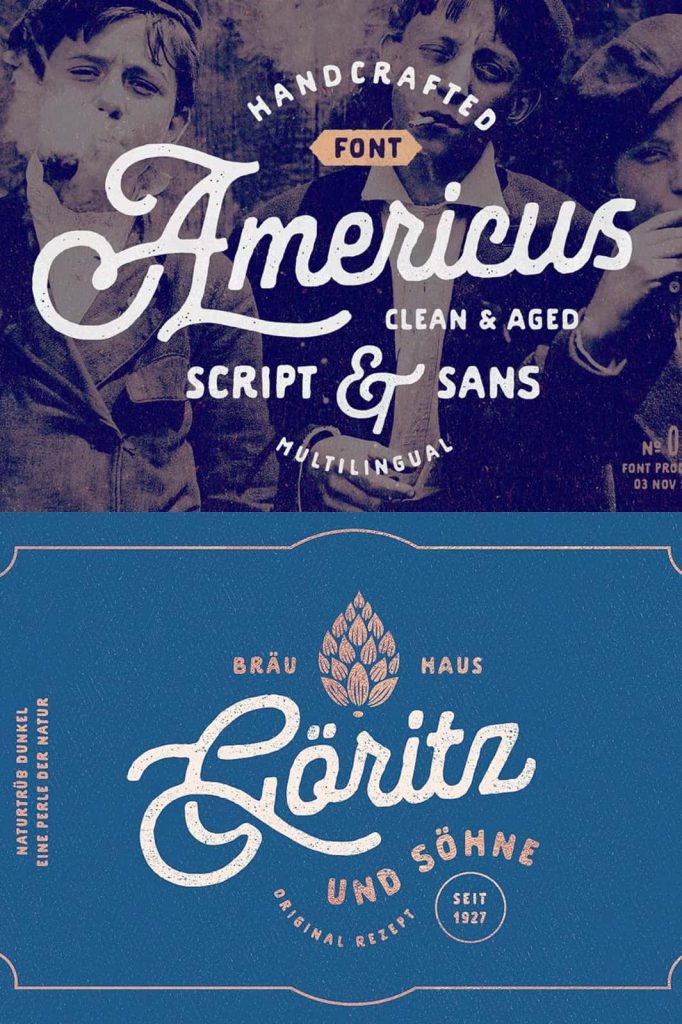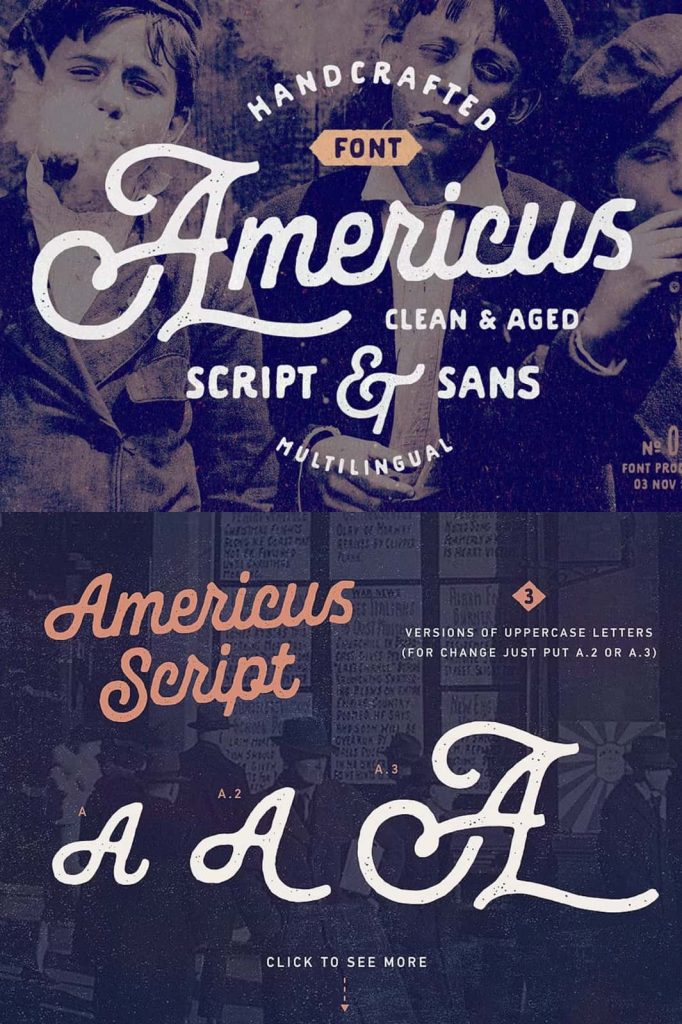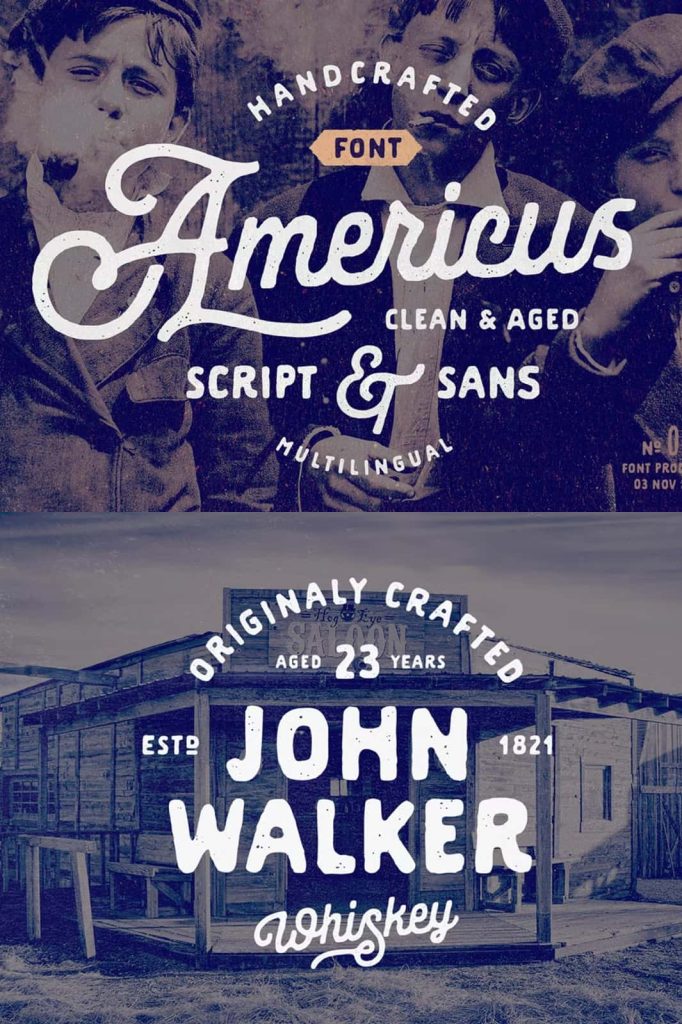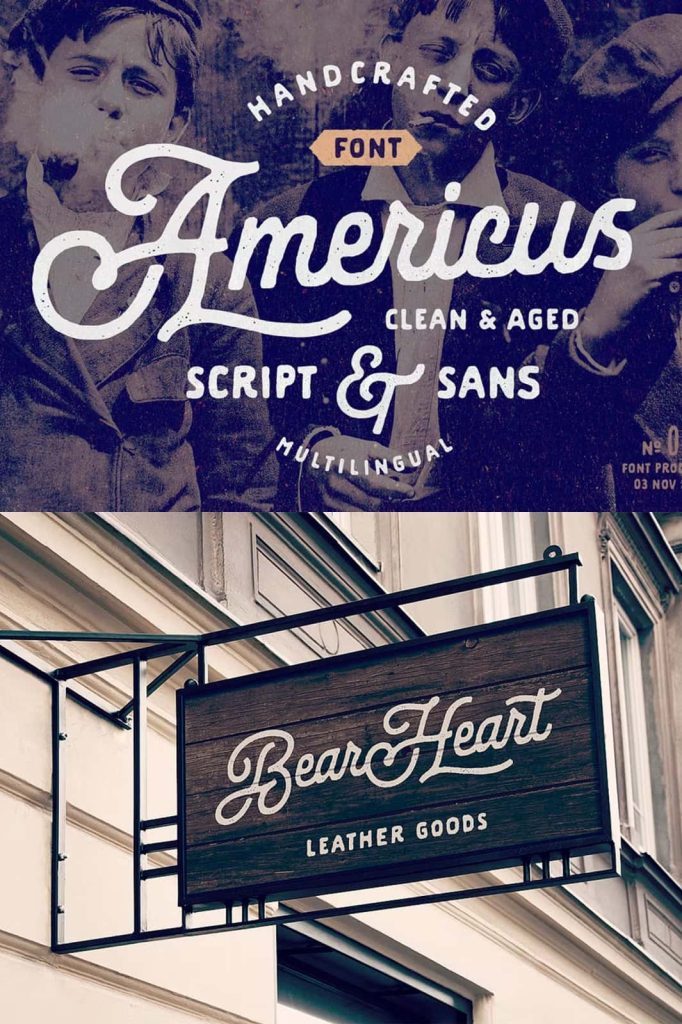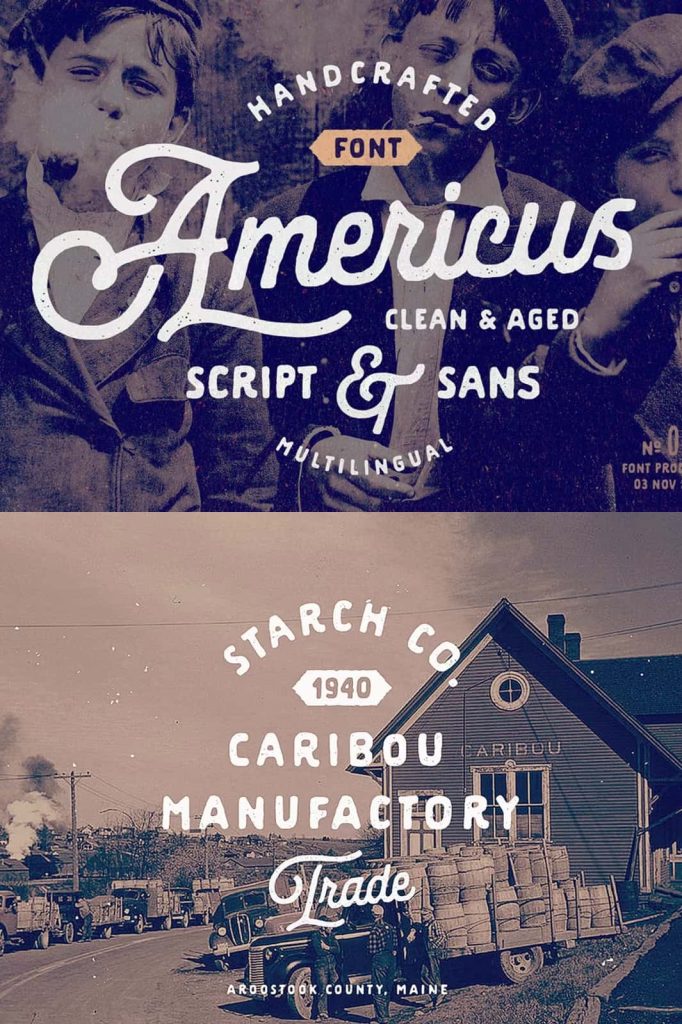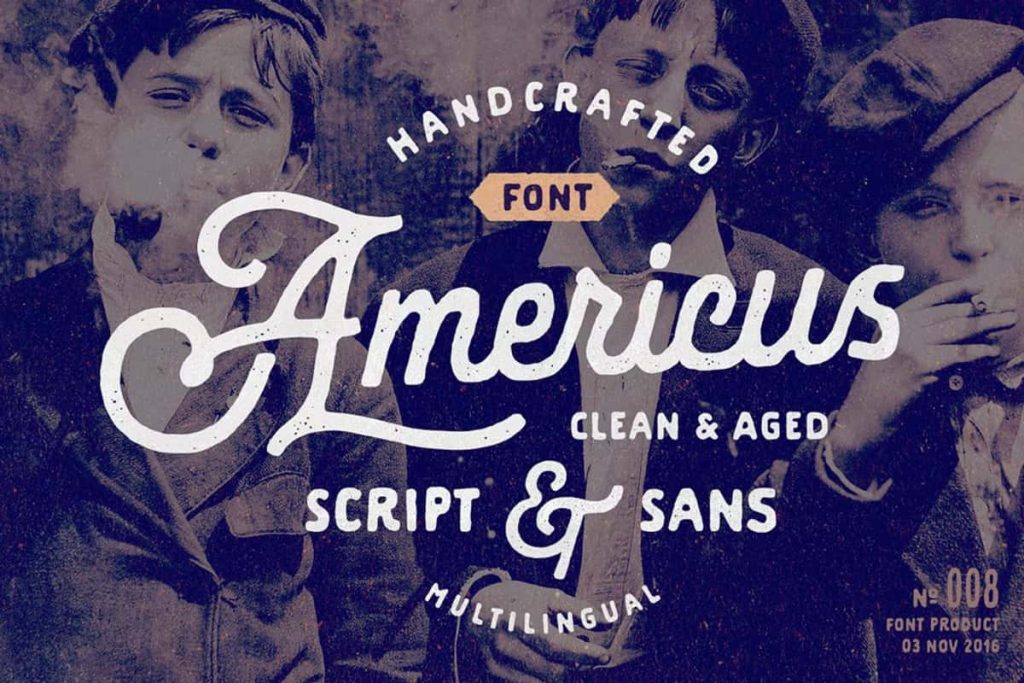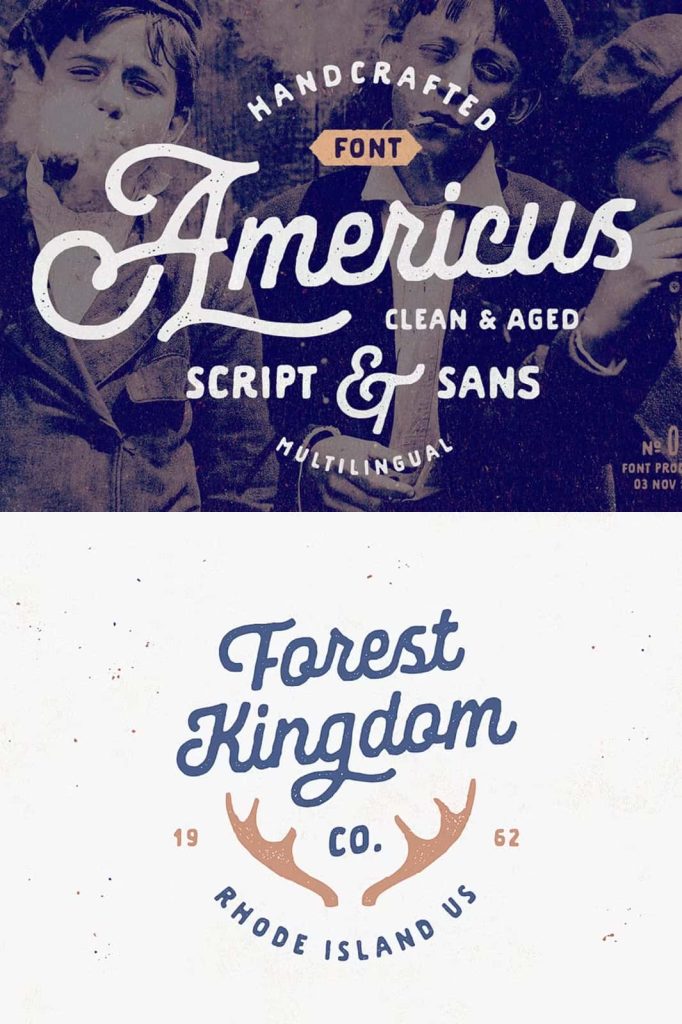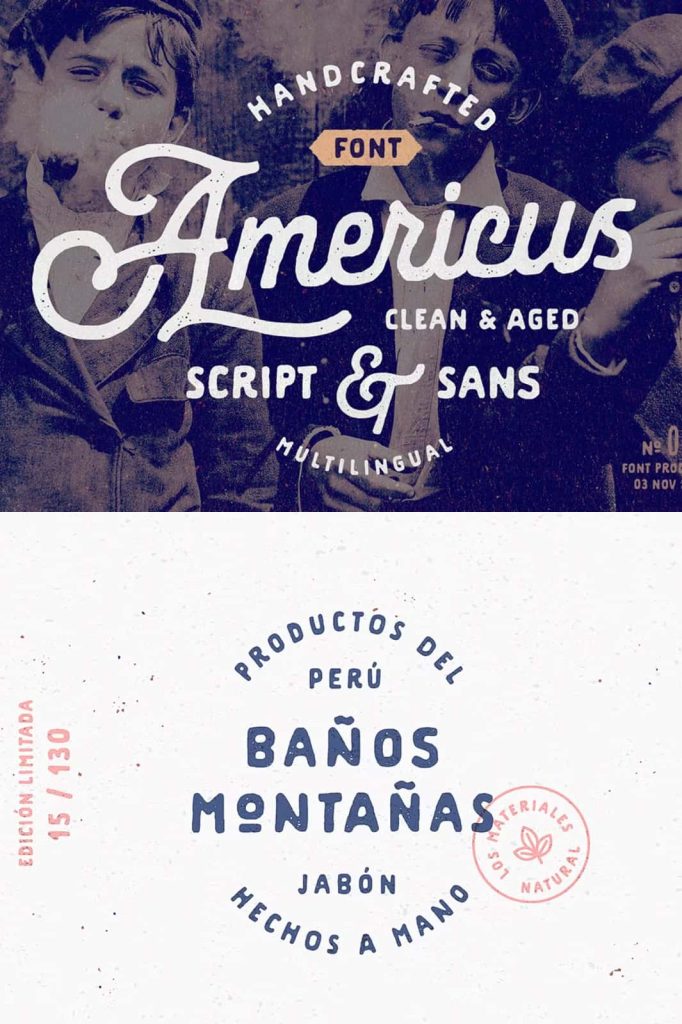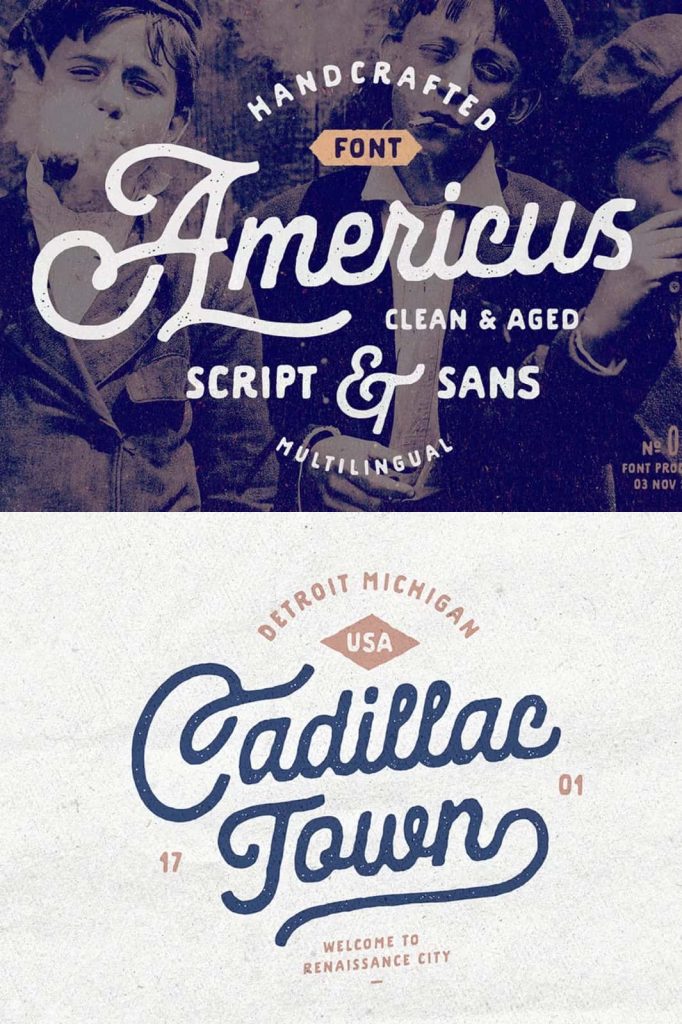
Americus Script & Sans: A Handcrafted Vintage Font Duo Inspired by Classic American Typography
Americus Script & Sans is a thoughtfully handcrafted font pairing that brings the spirit of traditional sign painting and classic American typography into modern design projects. Built with care and attention to detail, this font duo captures the charm of hand-lettered signs while delivering the flexibility designers need for professional and creative work.
Every character in Americus Script & Sans reflects a human touch. Subtle imperfections give the typeface its authentic personality, allowing designs to feel warm, genuine, and visually engaging. This balance between craftsmanship and usability makes Americus an essential tool for designers who value heritage-driven typography.
Inspired by Traditional Sign Painting
The foundation of Americus Script & Sans comes from traditional sign painting, a craft known for its precision, artistry, and expressive lettering. The script style features smooth, confident strokes that mimic hand-painted brush lettering, while the sans style provides a strong and stable counterpart.
This inspiration gives the font a timeless quality. The lettering feels rooted in history, yet adaptable to modern visual communication. Designers can use Americus to recreate the atmosphere of classic storefront signs, roadside lettering, and vintage advertisements with accuracy and style.
Classic American Typography with Character
Americus Script & Sans celebrates classic American typography by combining bold structure with expressive details. The letterforms draw from historical type traditions while embracing slight irregularities that enhance their handmade appearance. These imperfections are intentional, adding depth and personality without compromising clarity.
This character-rich design allows the font to actively communicate authenticity. Whether used in branding or promotional materials, Americus helps designs feel established, trustworthy, and full of story.
Two Styles That Work Seamlessly Together
One of the strongest features of Americus Script & Sans is the seamless interaction between its two styles. The flowing script pairs naturally with the clean and confident sans serif, allowing designers to create contrast and hierarchy within a single visual system.
This harmony makes the font duo incredibly versatile. Designers can combine both styles in logos, headlines, and layouts to achieve balance and visual interest. The pairing supports cohesive branding and ensures consistency across multiple design elements.
Perfect for Vintage-Style Logos
Americus Script & Sans excels in logo design, especially for brands seeking a vintage or heritage-inspired identity. The script style adds personality and movement, while the sans style grounds the design with strength and readability.
Logos created with this vintage script and sans font feel intentional and handcrafted. They communicate authenticity and craftsmanship, making them ideal for businesses in food and beverage, fashion, lifestyle, and creative industries.
Ideal for Labels, Packaging, and Product Design
Packaging and label design benefit greatly from Americus Script & Sans. The font duo helps products stand out by adding visual warmth and character. Its handcrafted look works particularly well for artisanal goods, handmade products, and brands that emphasize quality and tradition.
Designers can use the script for expressive product names and the sans style for supporting information, ensuring both impact and clarity. This flexibility makes Americus a reliable choice for cohesive packaging systems.
Expressive T-Shirt Lettering and Merchandise
Americus Script & Sans also performs beautifully in t-shirt lettering and merchandise design. Its bold strokes and handcrafted feel translate effectively to print, embroidery, and screen printing. The font adds personality and authenticity to apparel graphics, helping designs feel unique and purposeful.
Whether creating branded merchandise or statement typography, designers can trust Americus to deliver consistent results across different production methods.
Versatile and Reliable for Creative Projects
Beyond branding and merchandise, Americus Script & Sans adapts easily to posters, signage, editorial layouts, and digital content. Its clear structure ensures readability, while its handcrafted details keep designs visually engaging.
The font duo supports a wide range of creative workflows, making it a practical and expressive solution for designers who need flexibility without sacrificing style.
Bring Authentic American Craft into Your Designs
Americus Script & Sans proves that handcrafted typography can remain powerful and relevant in modern design. By combining traditional sign painting inspiration with classic American type influences, this vintage script and sans font duo delivers timeless appeal and creative versatility.
Add Americus Script & Sans to your font collection and elevate your logos, packaging, labels, and apparel with authentic, handcrafted character.